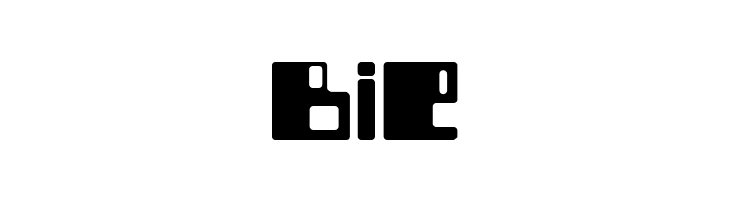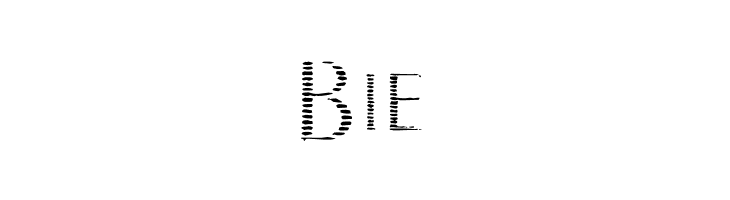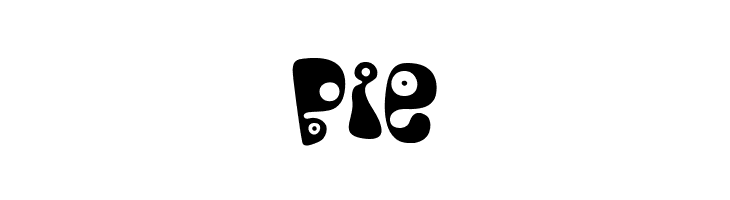
A bold, geometric font with sharp angles and a modern aesthetic.
A bold, geometric font with rounded corners and a modern, futuristic style.
A pixelated, retro-style font with a blocky, digital appearance.
A bold, distressed font with a grunge effect, ideal for impactful designs.
A playful, quirky handwritten font with dynamic, irregular letterforms.
A bold, industrial font with a mechanical, geometric design.
A bold, playful font with geometric and curved elements, ideal for creative designs.
A bold, playful font with a hand-drawn, whimsical style and heart motifs.
A playful, hand-drawn font with bold, irregular characters.
A decorative font with geometric shapes and playful flourishes.
A bold, thorn-like font with sharp, angular elements.